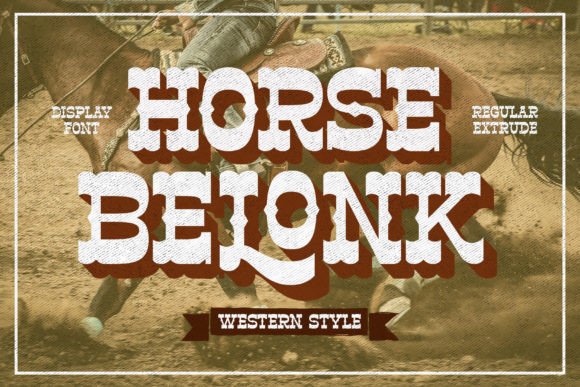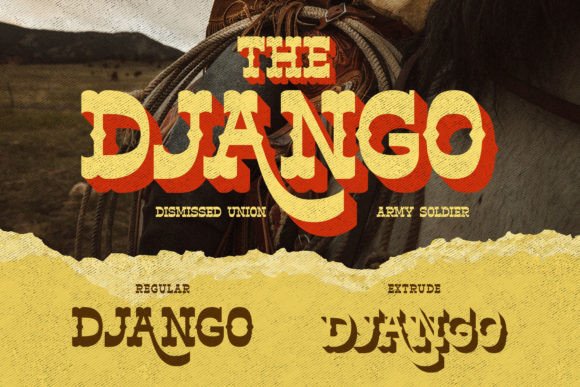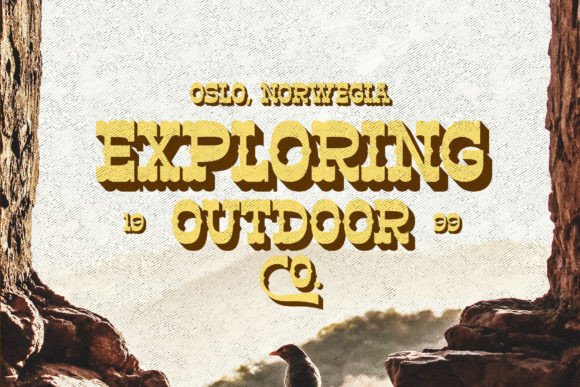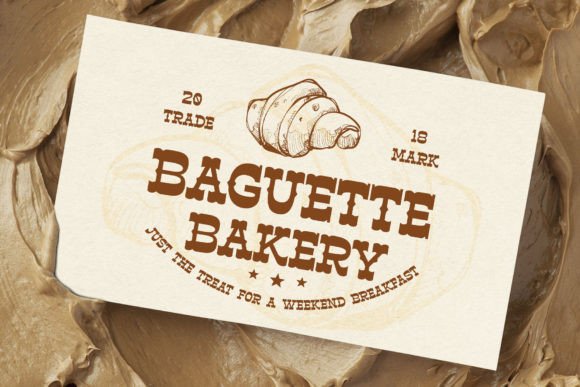
Horse Belonk Font: Retro Display Font for Vintage Logo Design
About the Horse Belonk Font
Elevate your designs with Horse Belonk Font, a font that combines sophistication with readability. Horse Belonk is a retro and western-looking display font. This bold, unique, and vintage font can easily become your favorite. It can be used for books, magazine covers, social media posts, invitations, and so much more! So add this to your creations and take your designs to the next level! Horse Belonk is PUA encoded which means you can access all the glyphs and ligatures with ease!
Horse Belonk excels as a display font for headlines, posters, and branding projects requiring a strong vintage feel. Its bold character makes it ideal for short impactful statements, particularly in Western-themed designs, or projects aiming for a retro, nostalgic aesthetic. However, its weight and unique letterforms make it unsuitable for body text or UI elements where legibility is paramount.
Consider pairing Horse Belonk with a clean sans-serif like Montserrat for a balanced contrast, or a classic serif such as Playfair Display for a more refined, traditional feel. For a more playful approach, a simple script font could add a touch of vintage charm.
The font projects a bold, confident, and slightly rebellious personality, best suited to brands that value a strong visual identity and aren’t afraid to stand out.
Horse Belonk Font Usage Examples
Horse Belonk Font Example